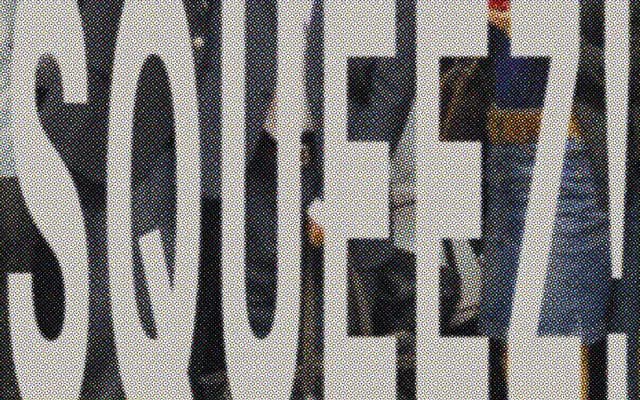
Neue Montreal Squeezed Collection
Off Type · Mat Desjardins, Valerio Monopoli
A family of four compressed widths derived from Neue Montreal, spanning Semi Squeezed to Ultra Squeezed across 56 styles and variable cuts.
Built directly on the Neue Montreal grotesque, this collection replaces the chore of manually compressing type with four professionally drawn widths, each carrying seven weights from Thin to Bold with matching italics. The family runs to 56 static styles plus variable cuts, covering Latin Extended A and Cyrillic. Aimed squarely at expressive graphic-design applications where tight, tall settings are the point rather than a workaround.
Described explicitly as a Grotesque sans-serif, derived from Neue Montreal; the squeezed widths are compressed variants of that grotesque base rather than a distinct classification shift.